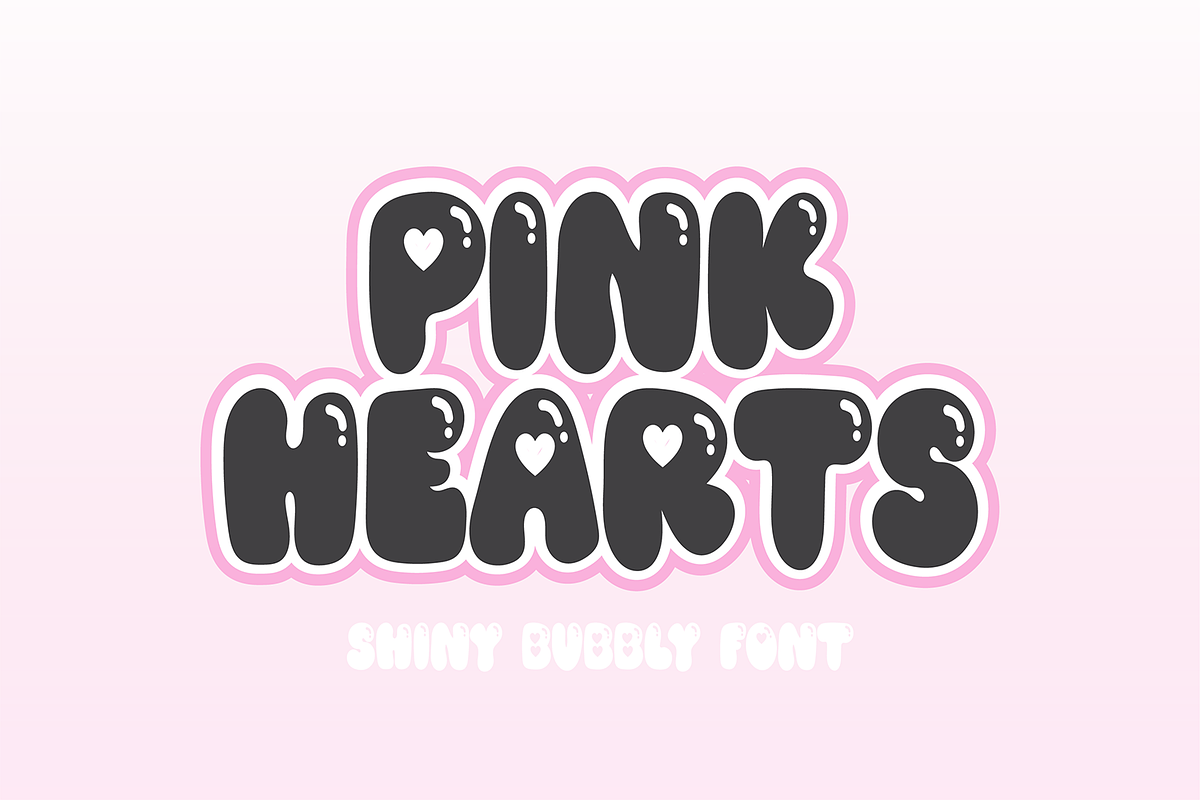
Pink Hearts Bubble Valentine Font Free Download is a sweet and bubbly typeface made to celebrate love with a pop of playful charm. Featuring rounded, balloon-like letters and adorable heart details, this font is perfect for Valentine’s Day cards, love notes, kids’ crafts, party invitations, and romantic social media content.
Its cheerful, cartoon-inspired style brings instant joy and warmth to any design. Whether you're creating something for a sweetheart or just spreading positive vibes, Pink Hearts makes your message feel soft, fun, and full of love.